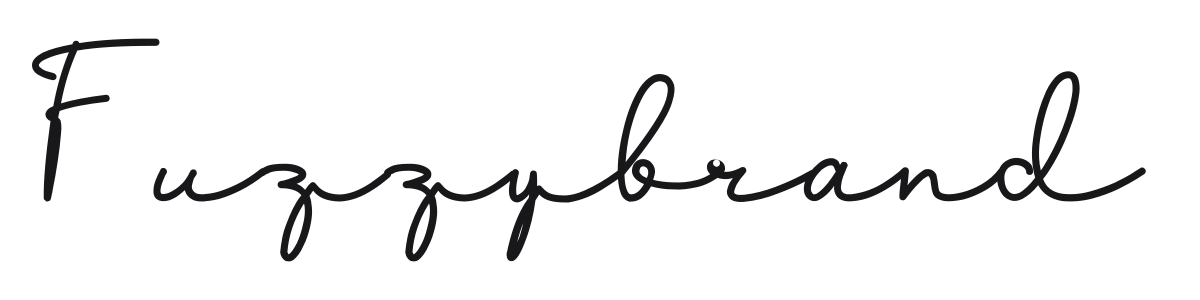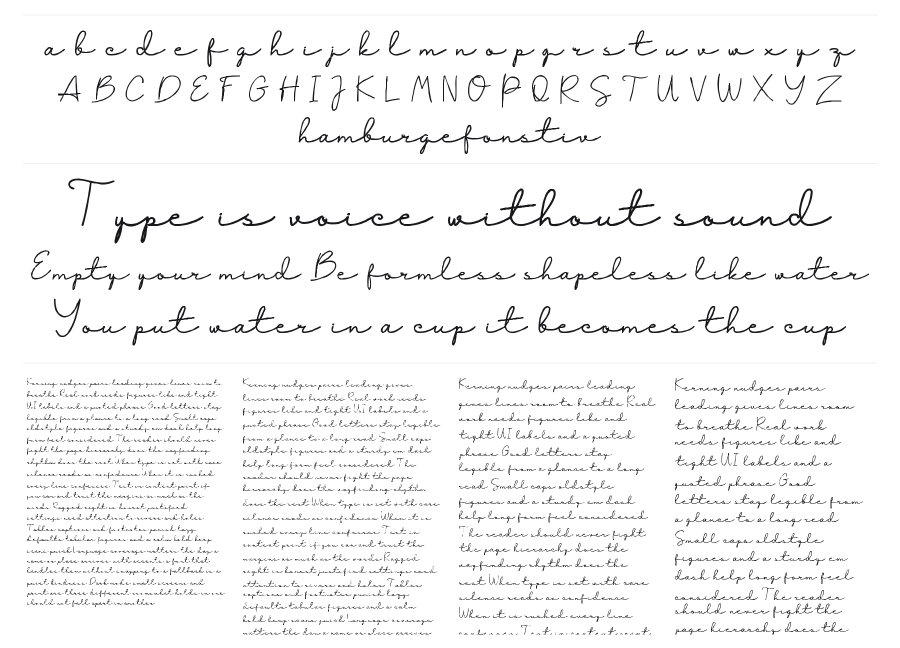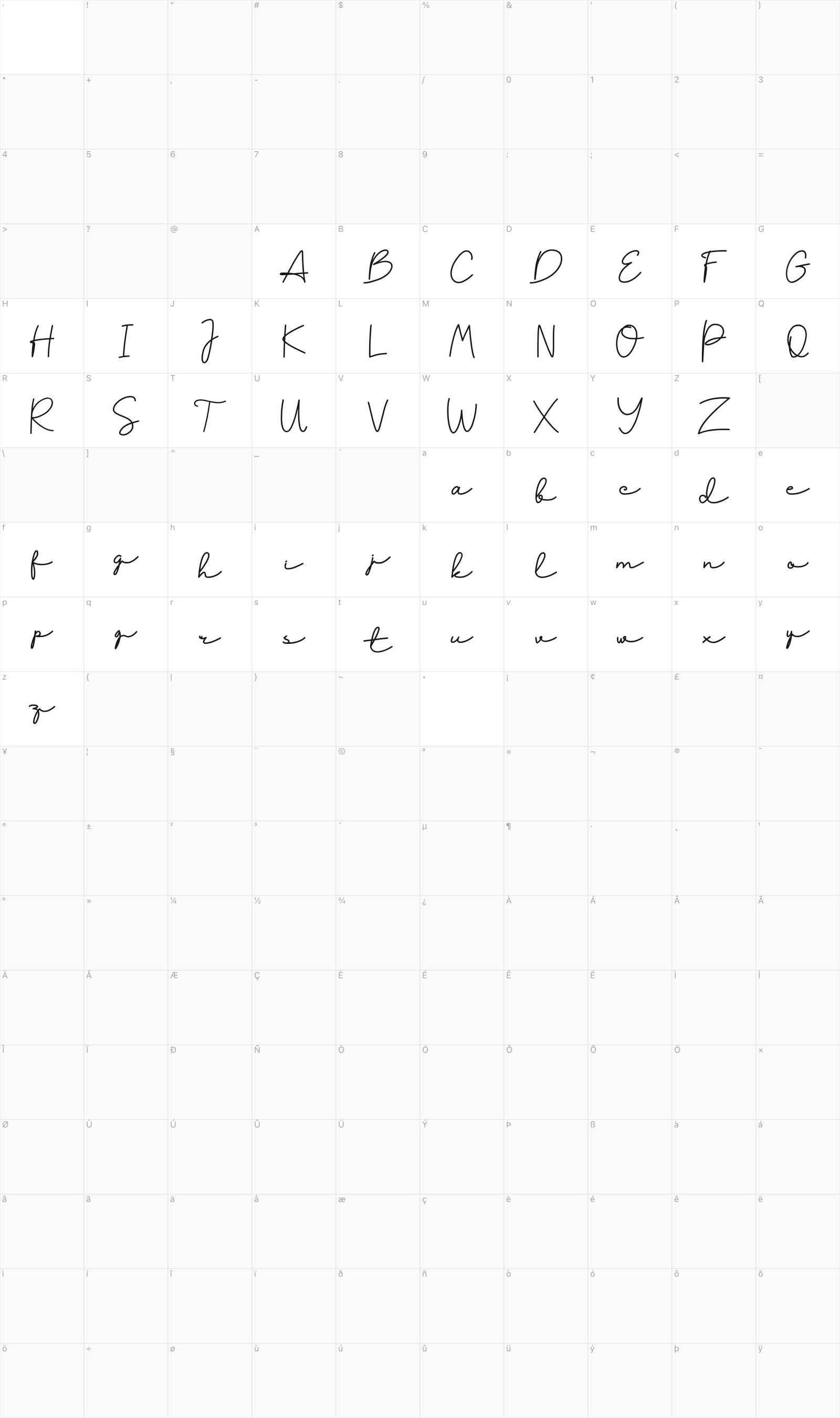
Fuzzybrand
Fuzzybrand is a casual connected cursive script with thin monoline strokes and a relaxed handwritten feel. The fully linked letters flow continuously across the baseline with loose loops and natural rhythm. It suits brand identity, packaging, and social media graphics where a personal, approachable tone matters.